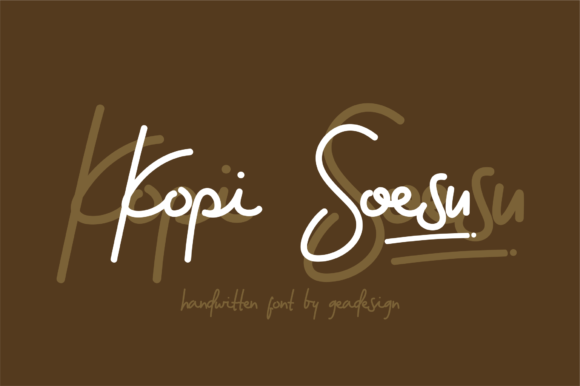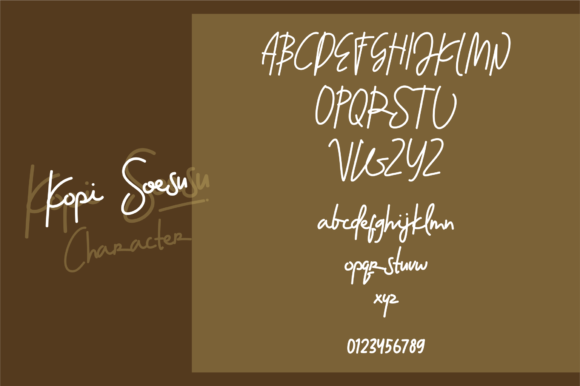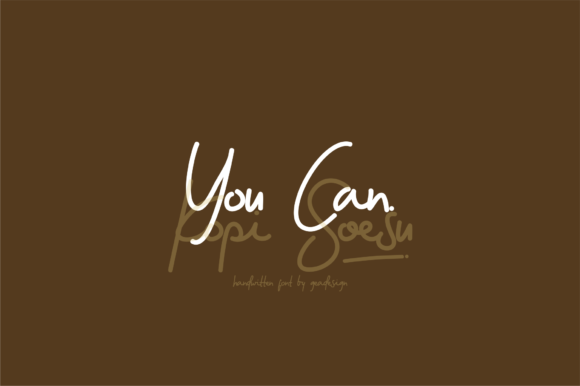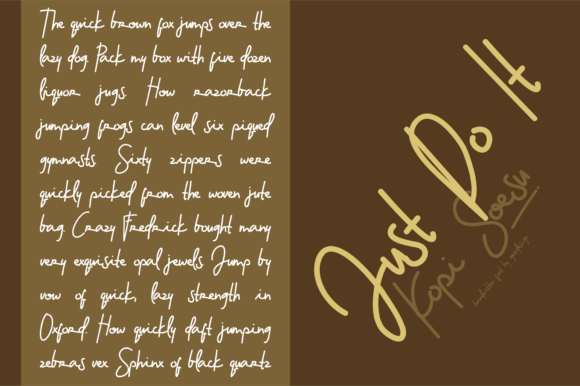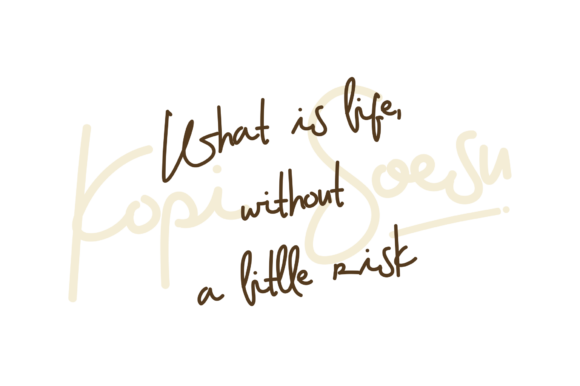
Kopi Soesu Font
Kopi Soesu is a beautiful and light handwritten font with a contemporary and casual vibe. It will turn any design project into a stand out!